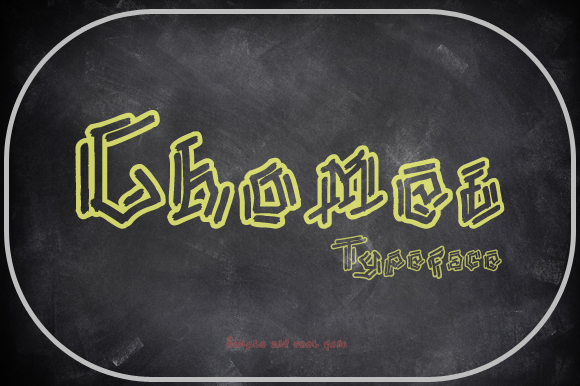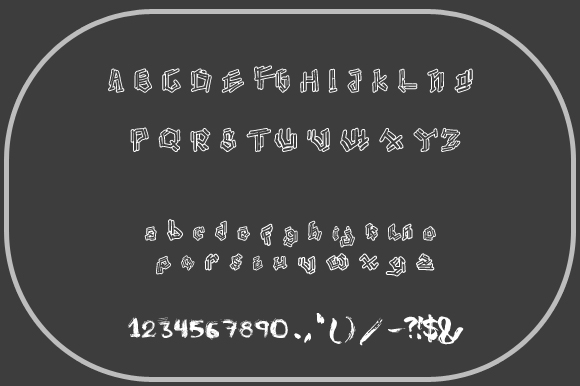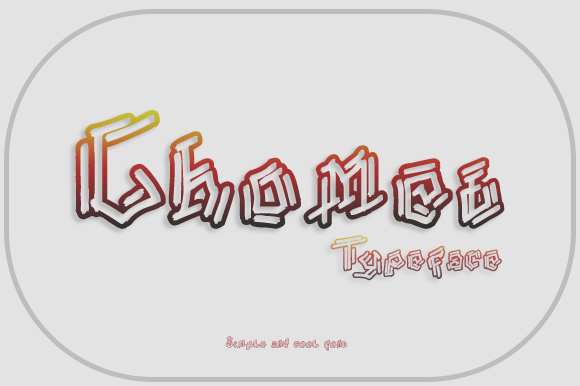
Discover the Unique Charm of Chomet Font by Gblack Id
In the vast and ever-evolving world of typography, where fonts are the cornerstone of design and communication, the Chomet font by Gblack Id stands out as a distinctive and versatile typeface. For designers, crafters, and anyone with a keen eye for detail, the Chomet font offers a fresh and exciting option for a wide range of projects. This article aims to provide an in-depth look at the Chomet font, exploring its features, uses, and the creative possibilities it unlocks.
Introduction to Chomet Font
The Chomet font, crafted by Gblack Id, is a thoughtfully designed typeface that brings a unique aesthetic to the table. At its core, Chomet is characterized by its clean lines, balanced proportions, and a distinct personality that sets it apart from more traditional fonts. One of the defining features of the Chomet font is its inclusion of basic punctuation, making it practical for a variety of applications, from digital content creation to crafting and DIY projects.
Key Features of Chomet Font
- Unique Design: The Chomet font boasts a design that is both modern and timeless. Its letters are crafted with precision, offering a clear and readable appearance that works well in various contexts.
- Basic Punctuation: Understanding the needs of its users, the Chomet font includes basic punctuation marks. This feature enhances its usability, allowing for the creation of more complex and nuanced text without sacrificing style.
- Versatility: Whether you’re working on a digital project, such as a website or a social media graphic, or a more traditional craft like handlettering or card making, the Chomet font adapts seamlessly. Its versatility makes it a valuable addition to any designer’s or crafter’s toolkit.
- Legibility: Despite its unique charm, the Chomet font does not compromise on legibility. It strikes a perfect balance between style and readability, ensuring that your message is conveyed effectively.
Applications of Chomet Font
The Chomet font by Gblack Id finds its application in a myriad of creative and professional projects. Here are a few examples:
- Digital Design: Use Chomet for website headers, blog posts, social media graphics, and more to add a touch of personality to your digital content.
- Branding and Marketing: The distinctive look of the Chomet font makes it an excellent choice for branding projects, including logos, brochures, and advertising materials.
- Crafting and DIY: For crafters, Chomet can be used in handlettering, scrapbooking, and card making, offering a stylish and contemporary look to handmade projects.
- Educational Materials: The clear and readable design of Chomet also makes it suitable for educational materials, such as textbooks, workbooks, and presentation slides.
Tips for Using Chomet Font Effectively
To make the most of the Chomet font, consider the following tips:
- Mix and Match: Combine Chomet with other fonts to create visual interest. Its unique design pairs well with both serif and sans-serif fonts.
- Play with Sizes: Experiment with different font sizes to emphasize certain parts of your text and create a hierarchy of information.
- Color Variations: Take advantage of the font’s design by using various colors. The clean lines of Chomet make it suitable for colorful and vibrant designs.
The Chomet font by Gblack Id is a remarkable addition to the world of typography. Its unique design, combined with practical features like basic punctuation, makes it an excellent choice for designers and crafters alike. Whether you’re looking to add a personal touch to your digital projects or seeking a stylish and legible font for your crafting endeavors, Chomet is sure to meet your needs. By incorporating the Chomet font into your projects, you not only enhance their aesthetic appeal but also contribute to the diverse and ever-evolving landscape of typography.
Explore the creative possibilities with Chomet font today and discover how this distinctive typeface can elevate your designs to new heights.